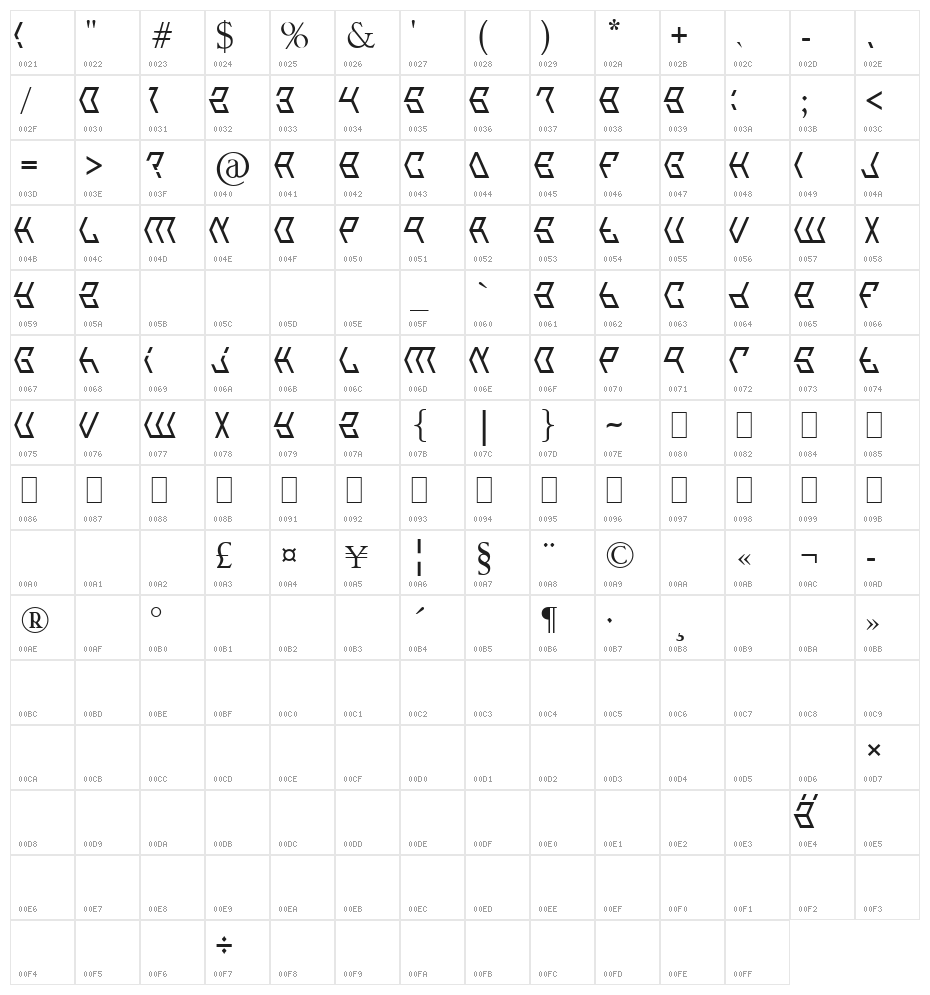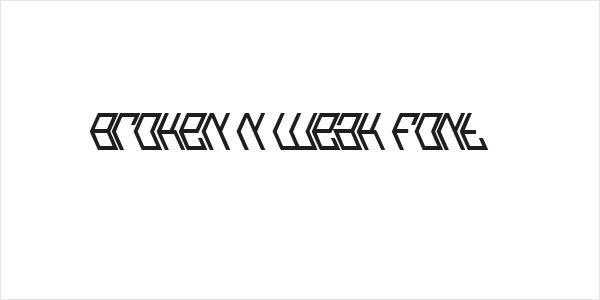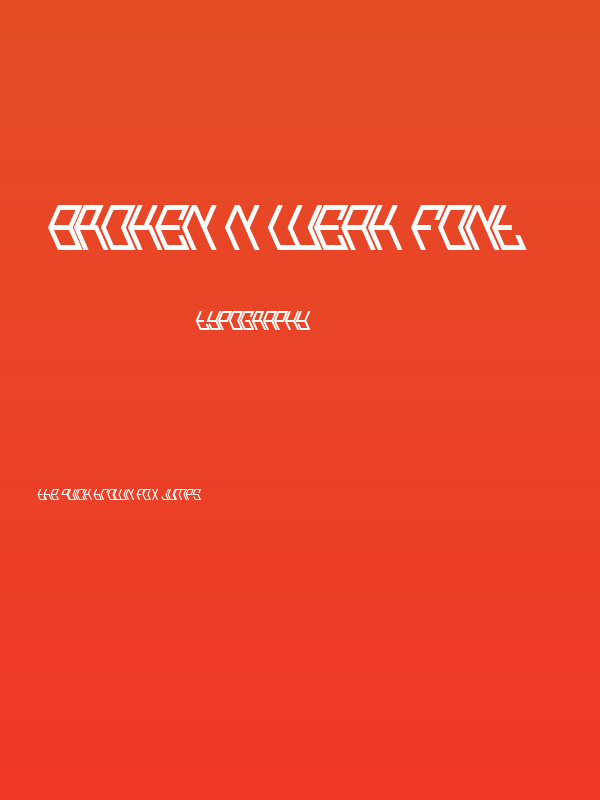
Broken n Weak Font Font
Broken n Weak Font Description
This font features a bold, geometric design with a futuristic and angular aesthetic. Each character is constructed with sharp, clean lines and a consistent thickness, creating a cohesive and striking appearance. The uppercase and lowercase letters maintain a uniform style, with a slight slant that adds a dynamic feel. Numbers and special characters are designed to match the angular theme, ensuring visual harmony across all elements. The font's unique style makes it stand out, ideal for projects that require a modern and edgy look.
| Proposed Projects | Ideal for sci-fi themed designs, modern branding, digital artwork, and video game graphics. |